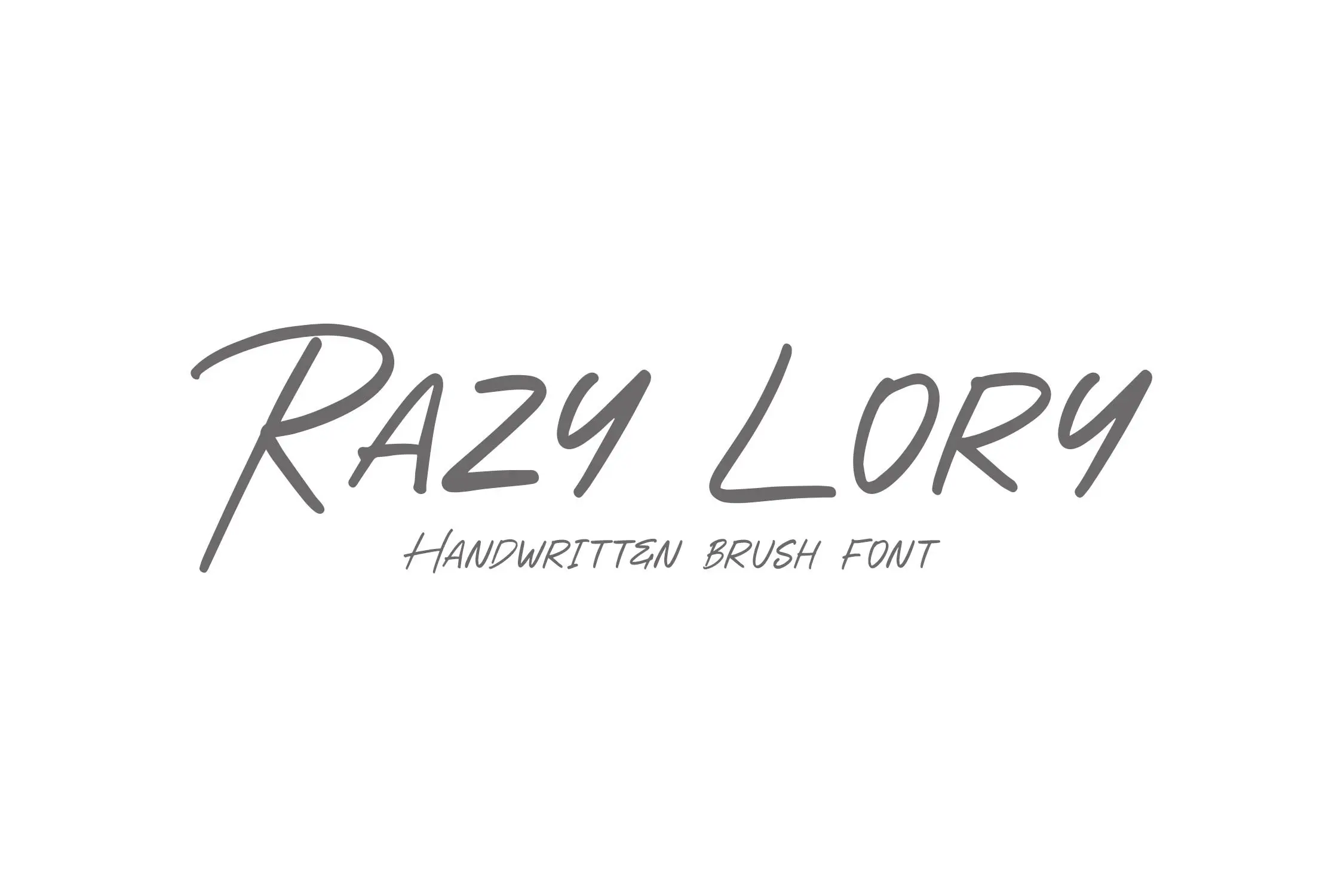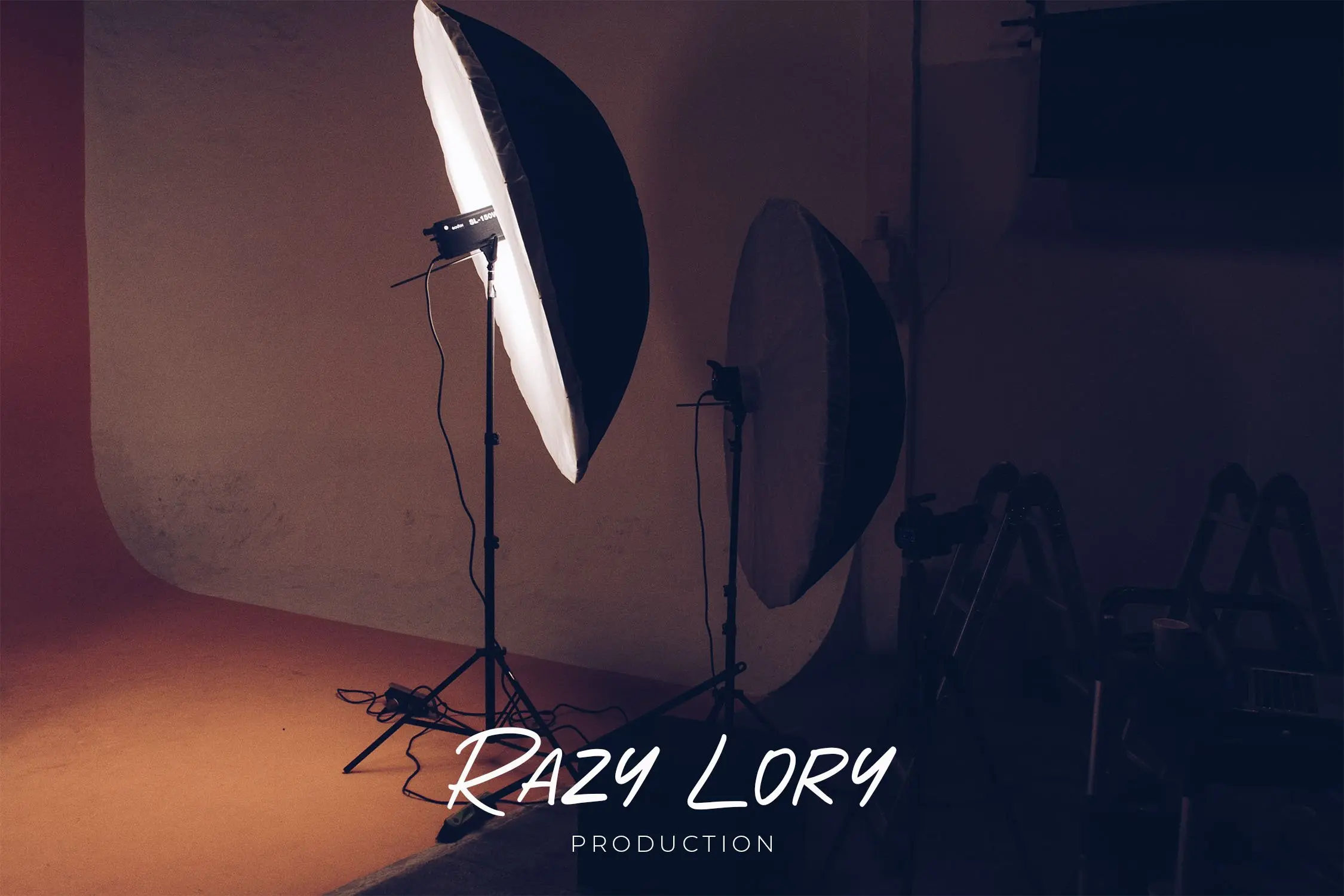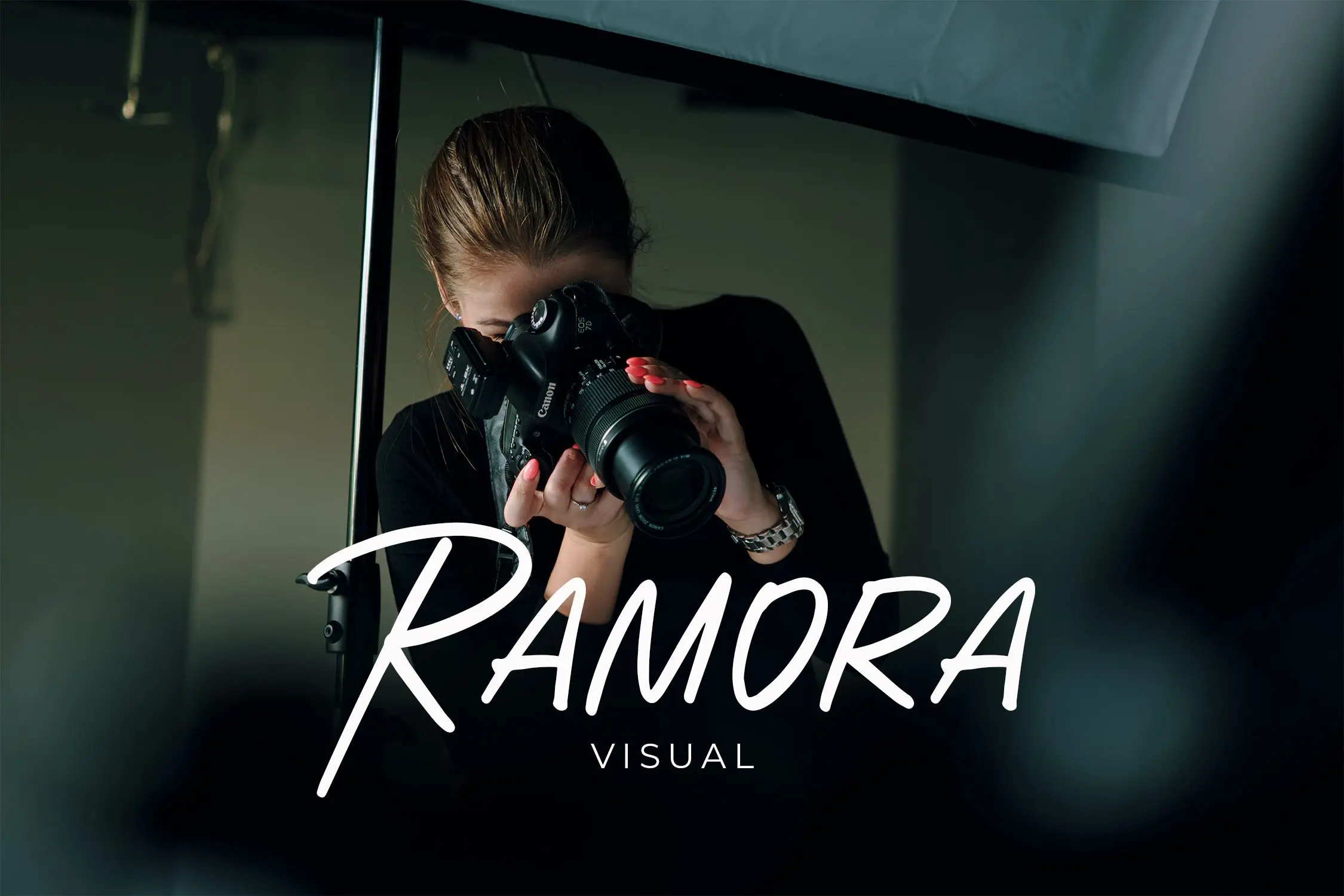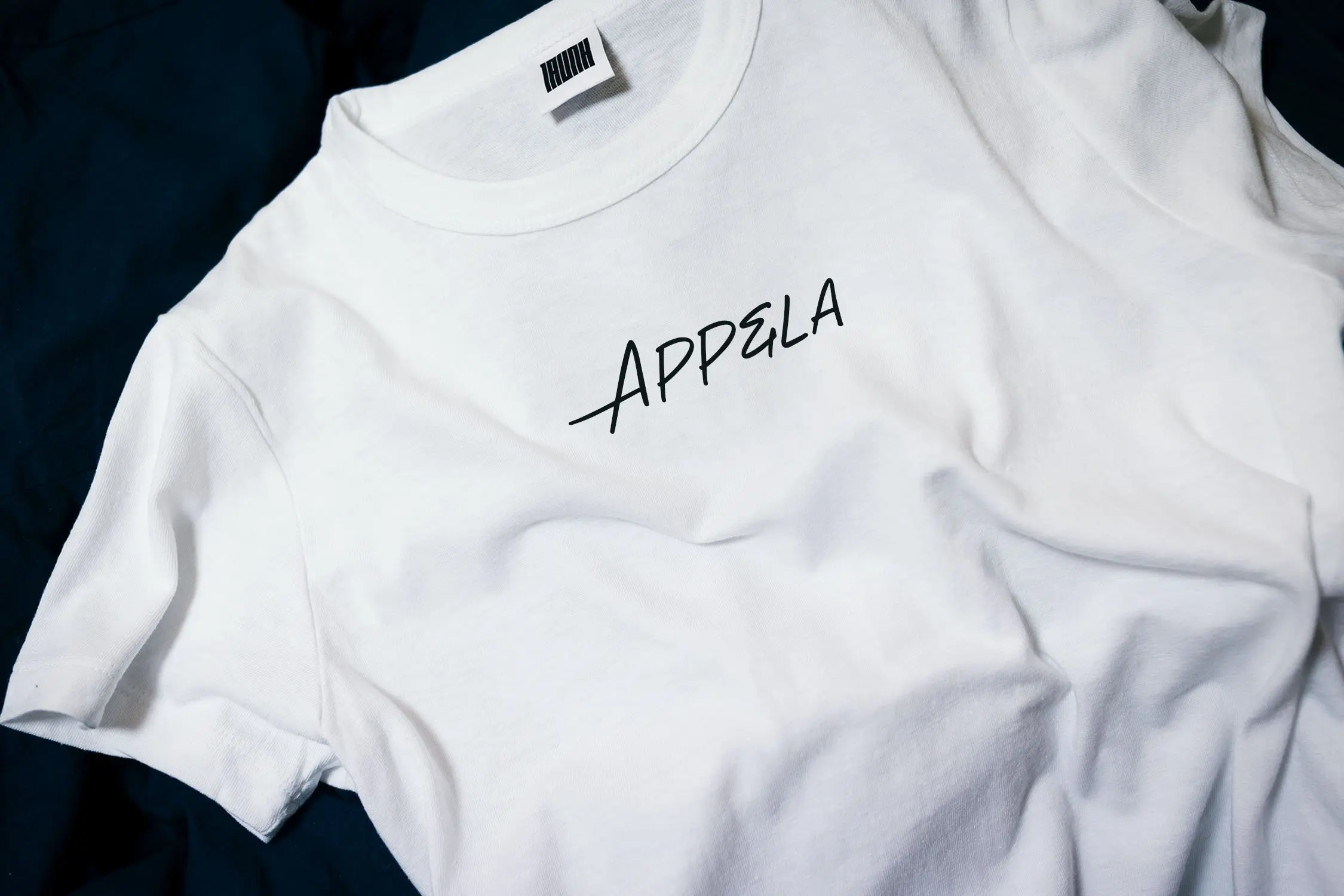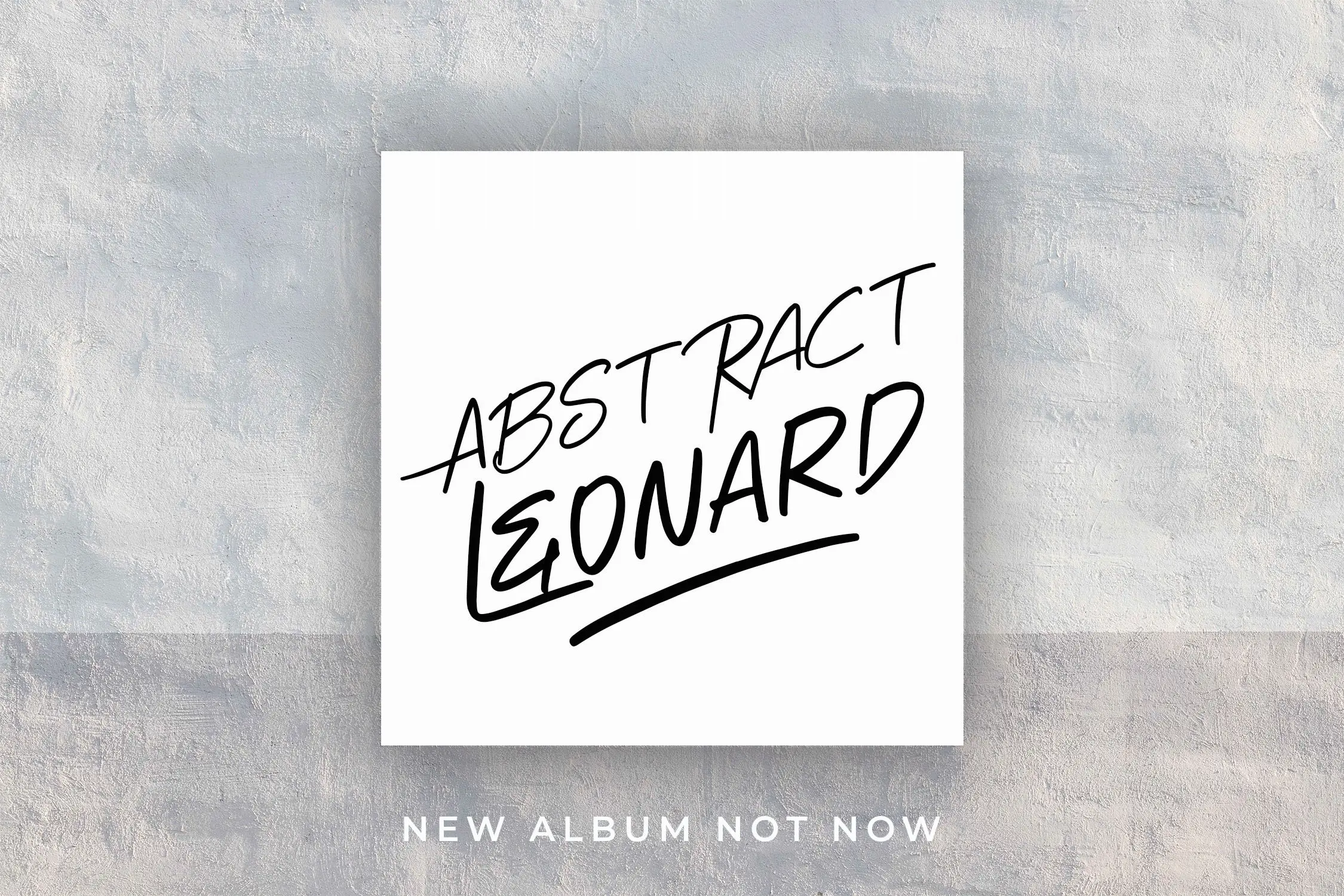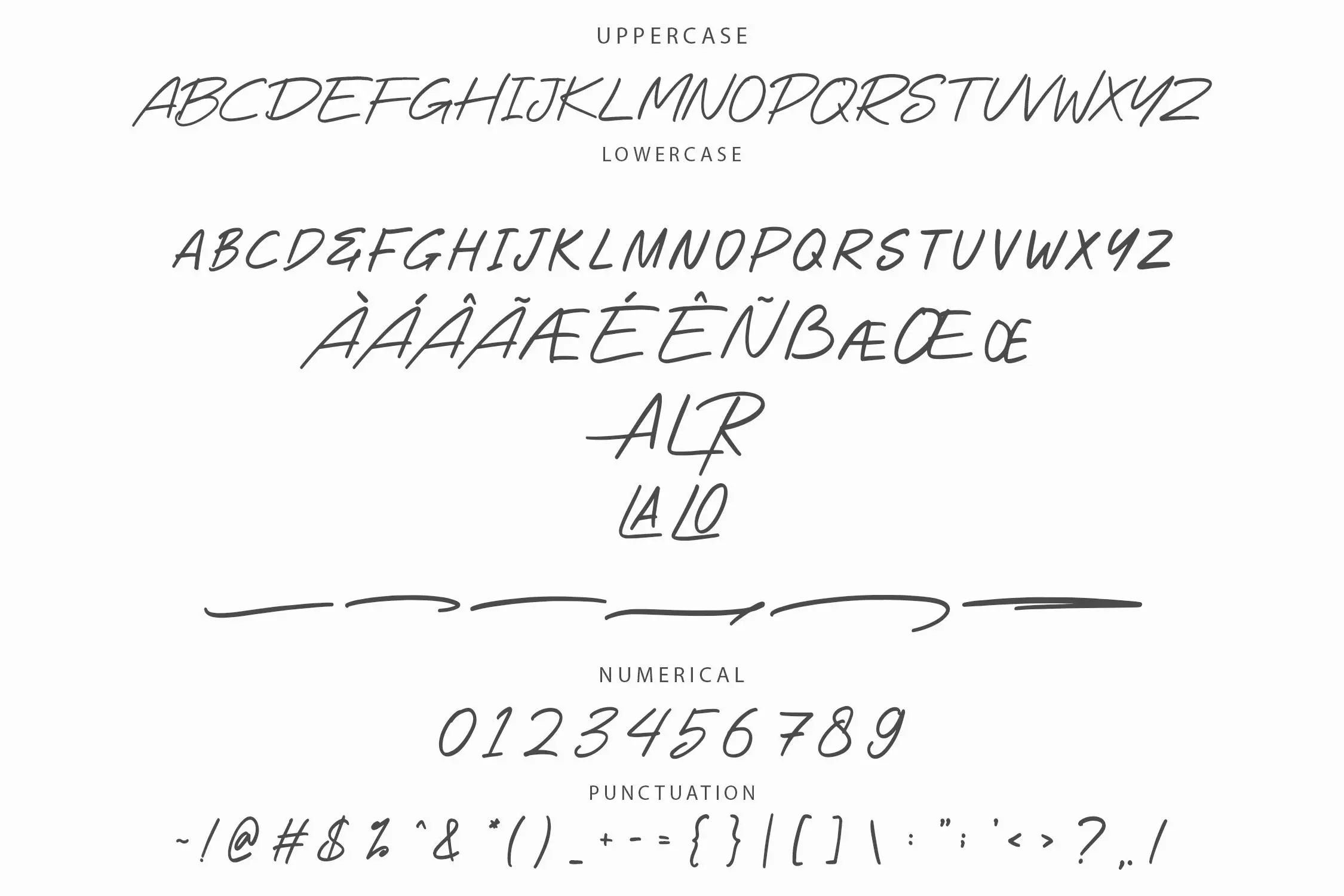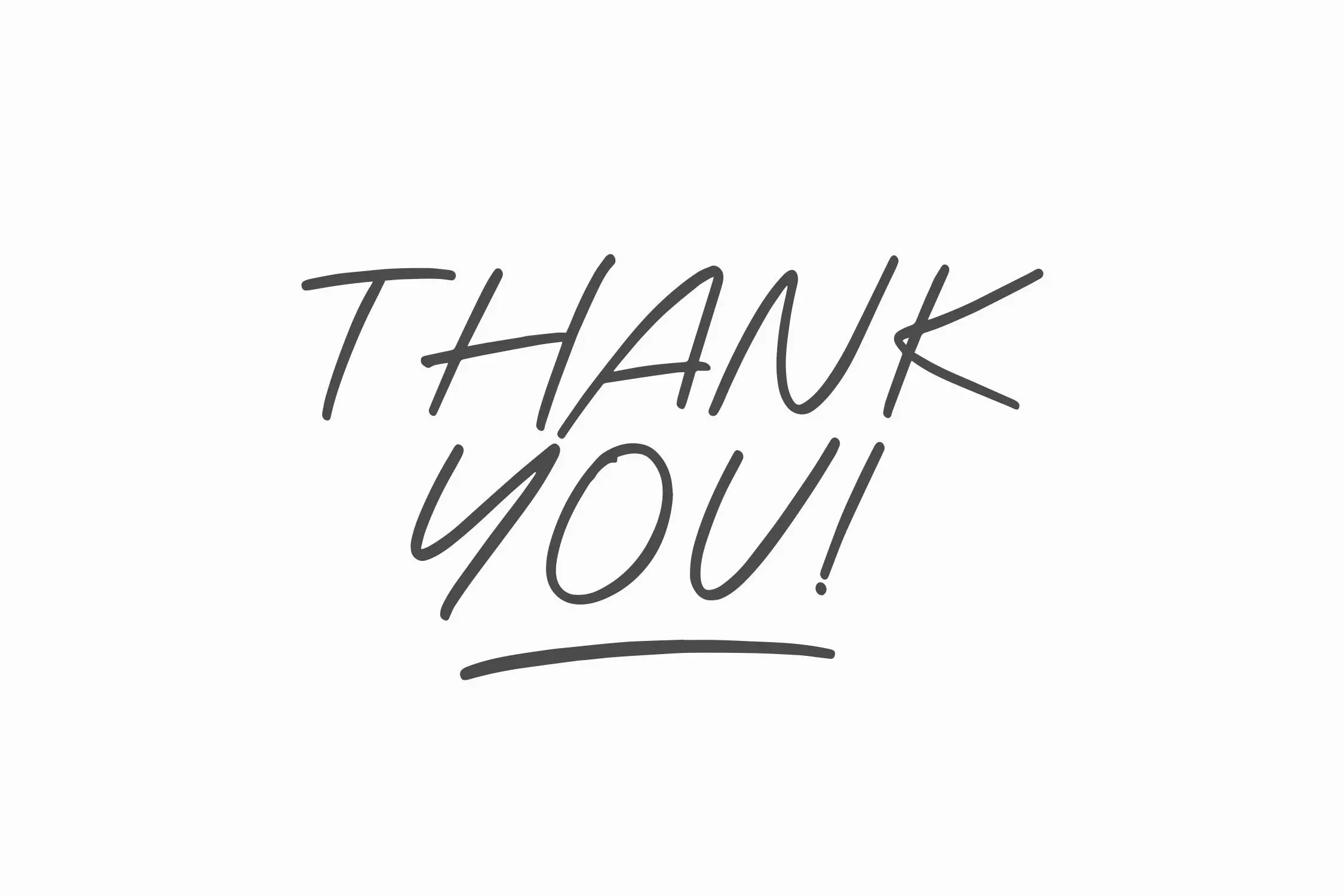
RazyLory
Razy Lory – Handwriting Brush Font
Introducing Razy Lory, a charming brush font designed with a unique handwriting style. Its distinctive character shapes add a uniqueness and authentic touch to your designs, making it perfect for projects like branding, invitations, social media graphics, and more. With its fluid strokes, Razy Lory enhances the visual appeal of any creative work, making it feel warm and inviting.
• Includes ligatures, stylistic alternates, and swashes
• Multilingual support for broader applications
Infuse your designs with the warmth and personality of Razy Lory handwriting brush font!